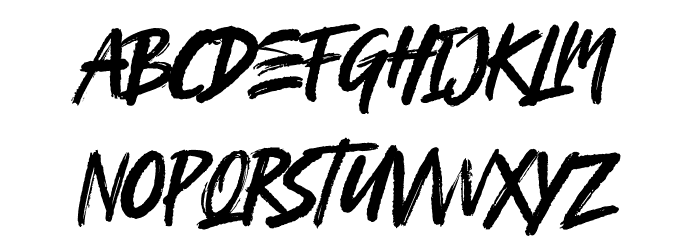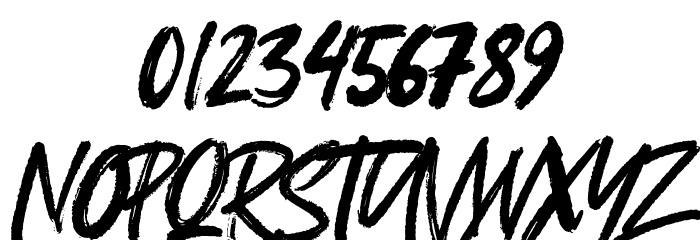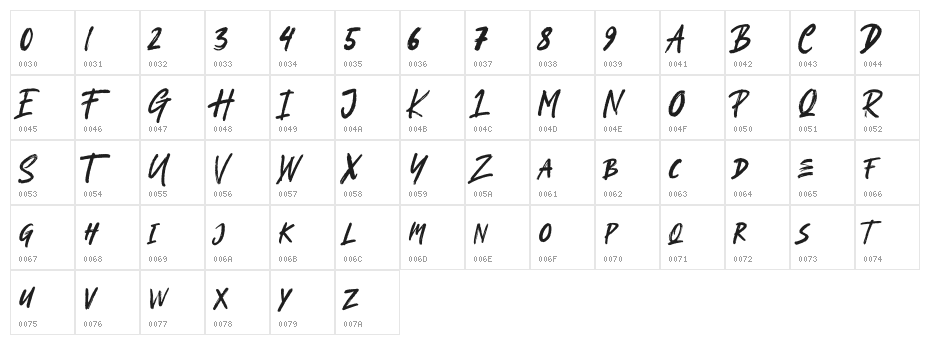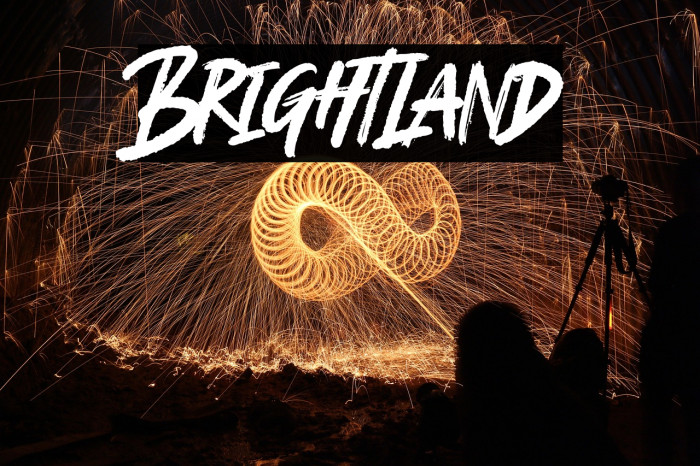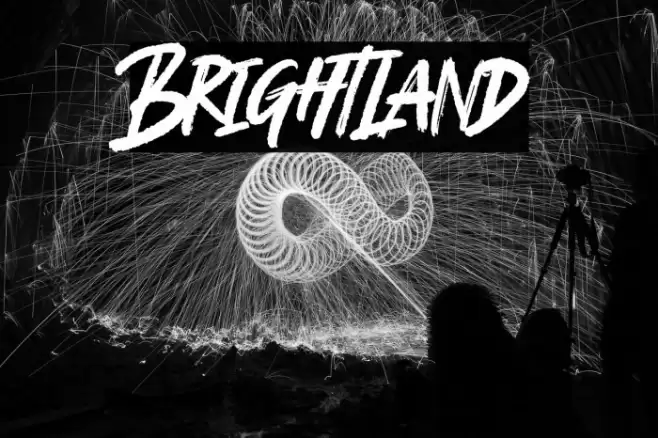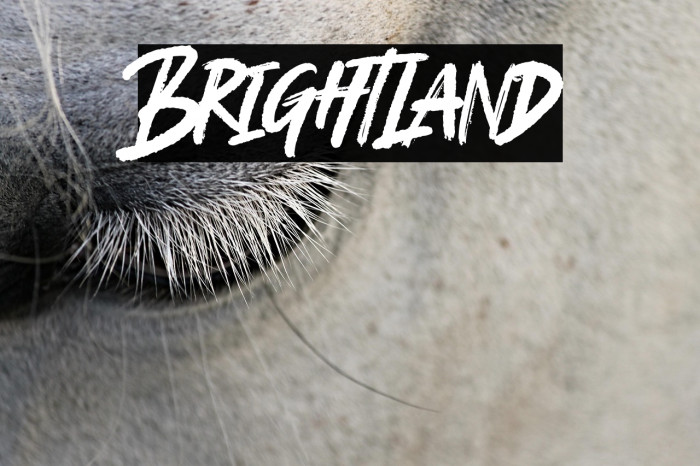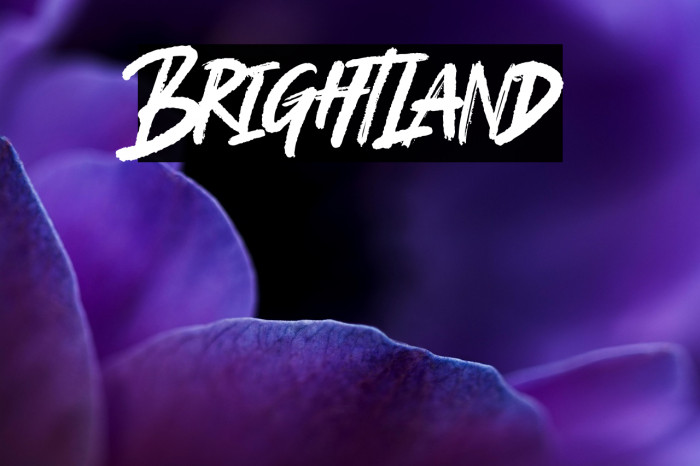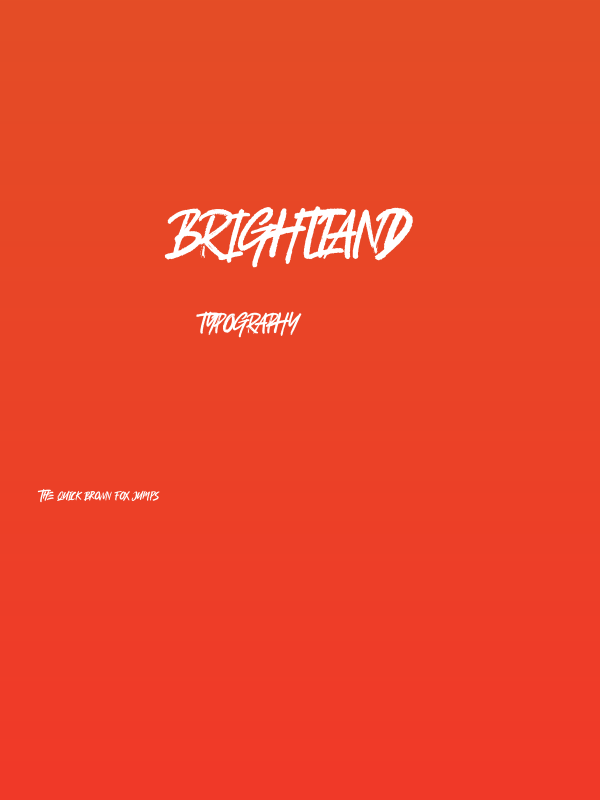
Brightland Font
This font features a bold, expressive style with a brush-like texture that gives it a dynamic and energetic appearance. The strokes are thick and uneven, creating a sense of movement and spontaneity. The uppercase and lowercase letters are designed with a consistent slant, adding to the font's fluidity. The numbers and special characters maintain the same bold and textured quality, ensuring a cohesive look across all characters. This font is ideal for projects that require a strong visual impact and a sense of creativity.
A bold, brush-style font with dynamic, textured strokes.
- Proposed Projects: Ideal for branding, posters, album covers, and creative advertising campaigns.
- Overall Style: Modern, Artistic